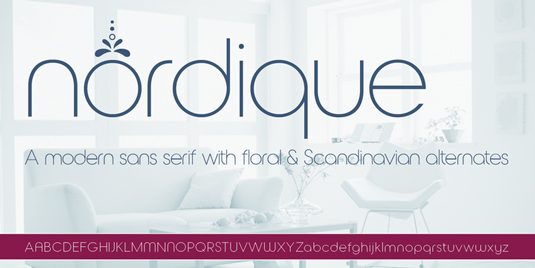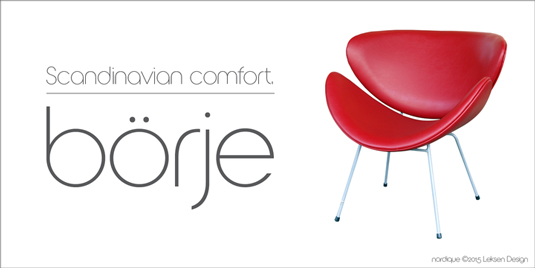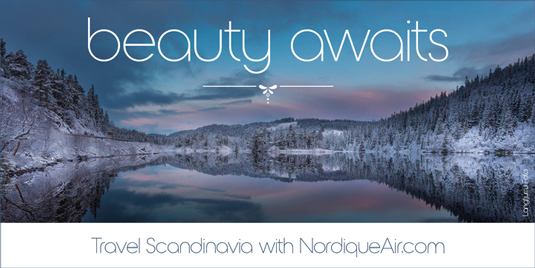
Font of the day: Nordique
Every day we showcase the best fonts on the web. Today it's Nordique by Andrea Leksen.
Nordique by Andrea Leksen
Today's typeface of choice is Nordique, created by graphic designer Andrea Leksen. Inspired by her Swedish and Norwegian heritage, Leksen created this modern geometric sans serif reminiscent of Scandinavian design and typography. With its tall x-height and thin strokes, Nordique is most suited to use at large sizes, in headlines and other display uses.